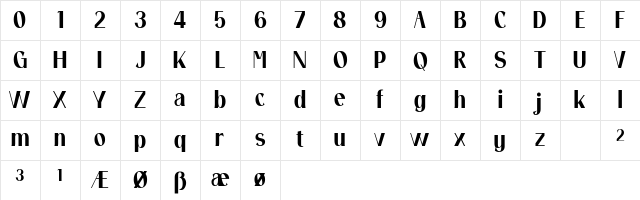
Gailes Personal Use Regular Free Font
Gailes Personal Use Regular
Foundry: Ibra Creative Studio
Designer: Ibra Fonts
Design Context for Gailes Personal Use
Gailes Personal Use is a composed and adaptable typeface that performs quietly and consistently across a wide range of design contexts.
Who designed the Gailes Personal Use Regular font?